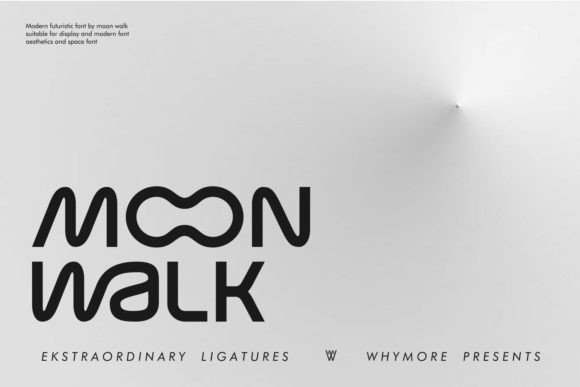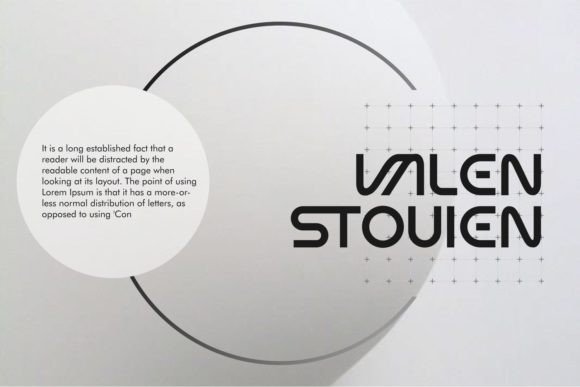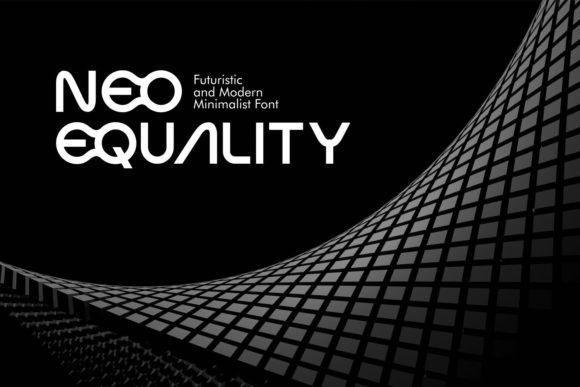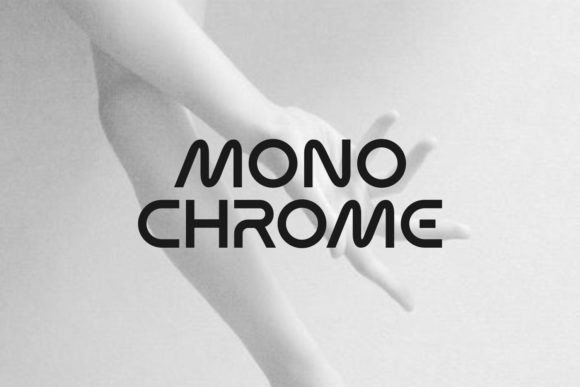
Moon Walk Font: A Modern & Minimalist Font for Logo Design
About the Moon Walk Font
Elevate your designs with Moon Walk Font, a font that combines sophistication with readability. Moon Walk is a stunning typeface that can showcase elegance but with a minimalist form. The curves at each end of the letter ornament illustrate that this font is very ready to live in the present and the future. Whether used for branding, design templates, in the form of invitations, calendars, posters, headlines, brochures, promotional tools or editorial designs.
Moon Walk excels in headlines, short text blocks, and branding applications where a clean, modern aesthetic is desired. Its elegant minimalism makes it perfect for logos, invitations, and posters. However, its delicate forms are less suitable for body text or UI elements requiring high readability at smaller sizes. Extended use could strain readability.
The font’s personality is sophisticated yet approachable. It projects a sense of modern elegance and understated confidence. This makes it ideal for brands aiming for a premium or luxury feel, particularly in fashion, beauty, or lifestyle sectors.
Pairing Moon Walk with a geometric sans-serif like Futura or a slightly warmer, neutral serif such as Garamond provides excellent contrast and balance. For a more playful feel, a handwritten script font could be incorporated sparingly as an accent.
Moon Walk Font Usage Examples
Moon Walk Font Example